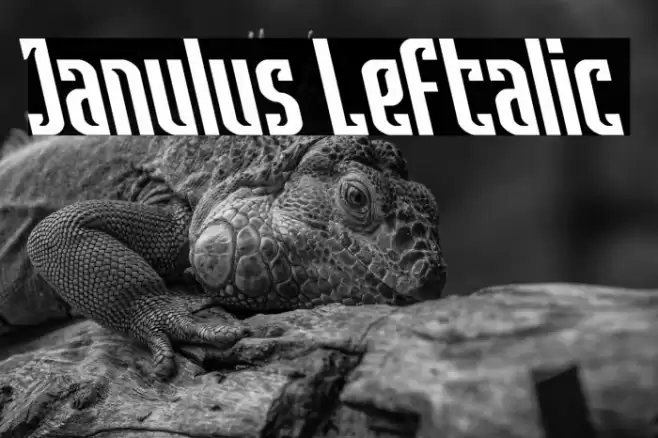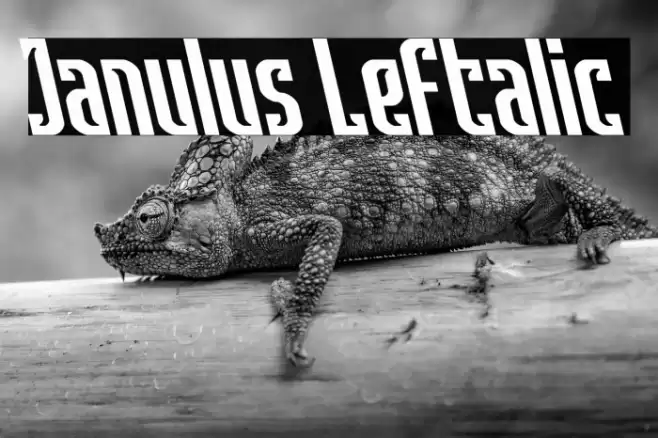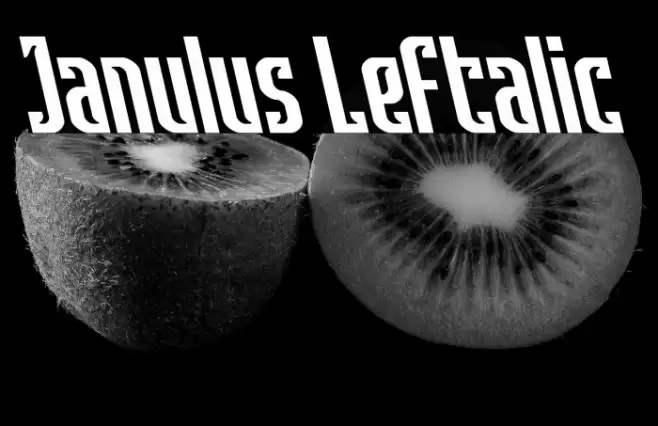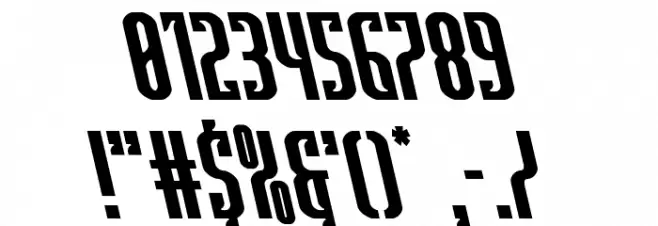
Janulus Leftalic Font
Janulus Leftalic Description
This font features a bold and dynamic style with a distinct leftward slant, giving it a sense of movement and energy. The characters are thick and robust, with angular cuts and sharp edges that create a modern and edgy appearance. The uppercase and lowercase letters maintain a consistent style, while the numbers and special characters complement the overall aesthetic. The font's unique design makes it stand out, suitable for projects that require a strong visual impact.
A bold, left-leaning font with sharp, angular features from Uncategorized fonts.
- Proposed Projects: Ideal for posters, branding, and headlines that need a modern and dynamic look.